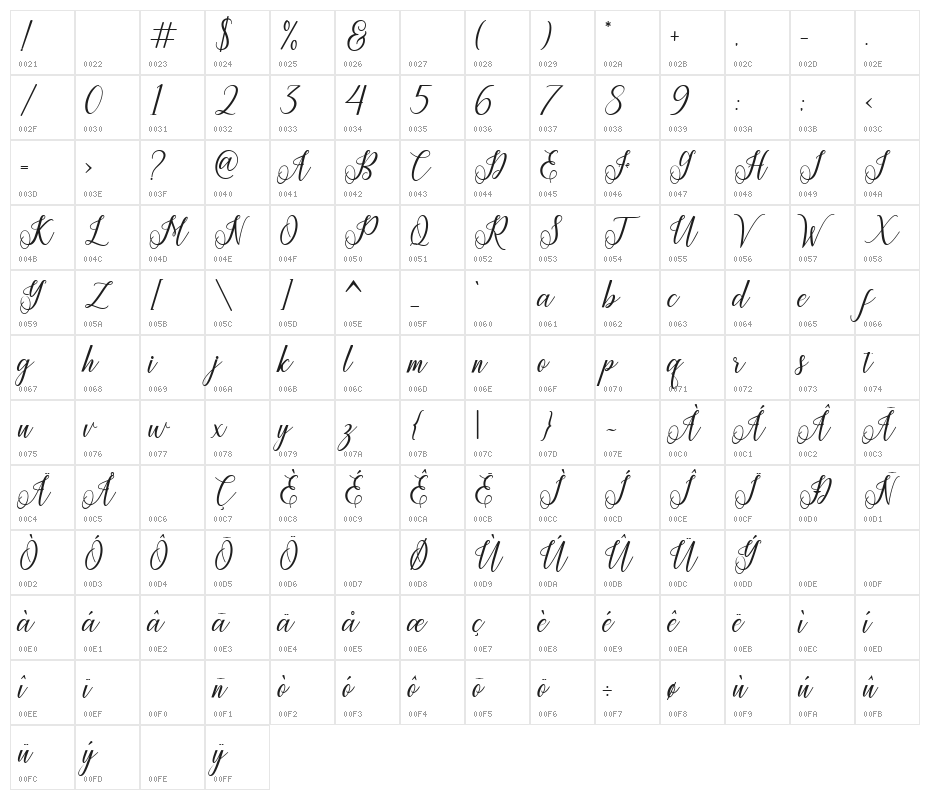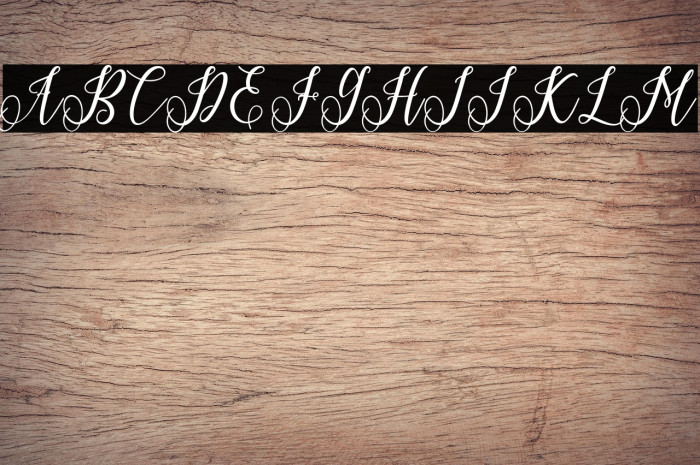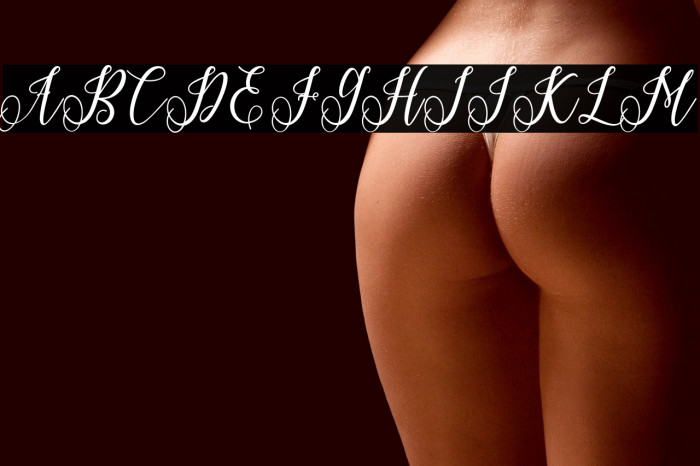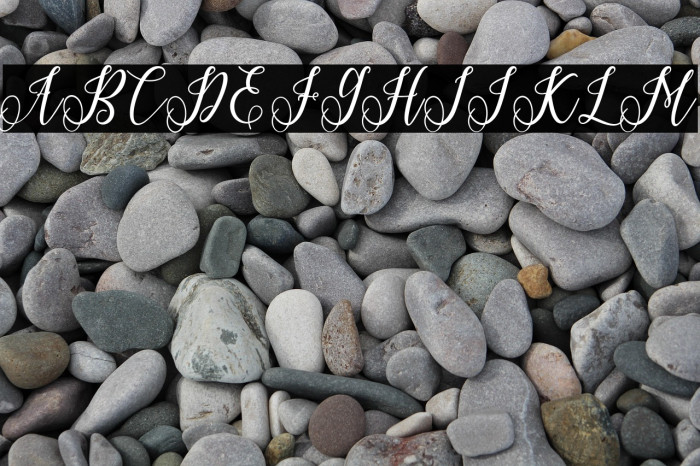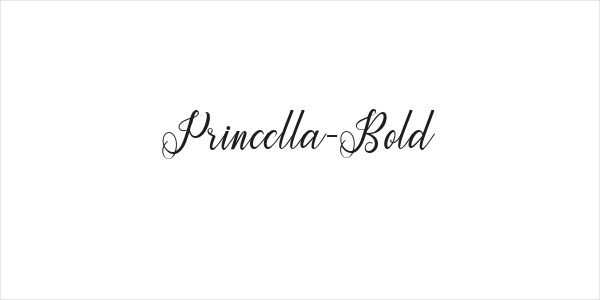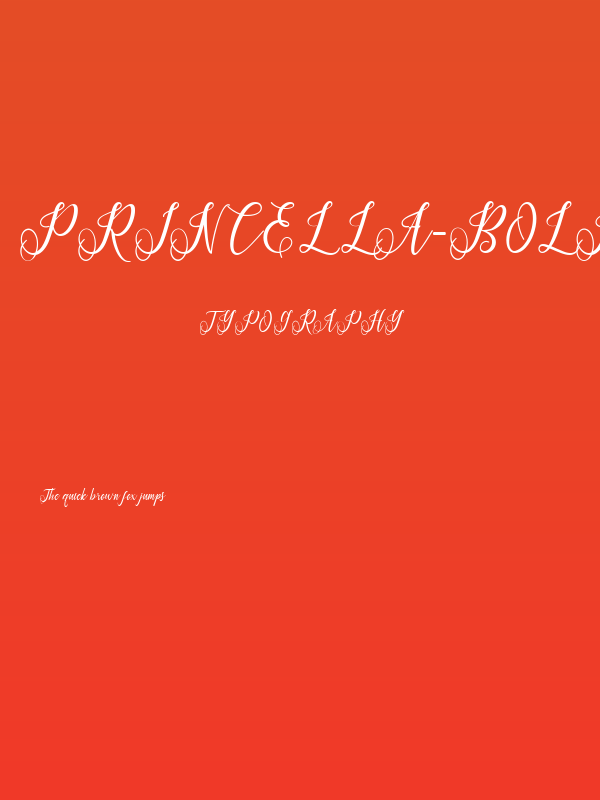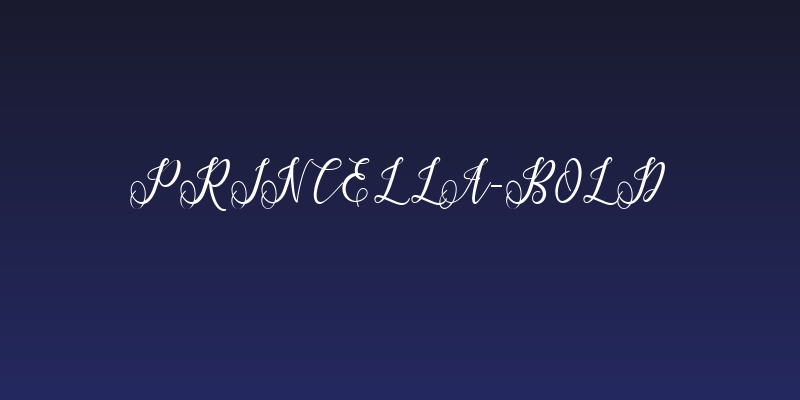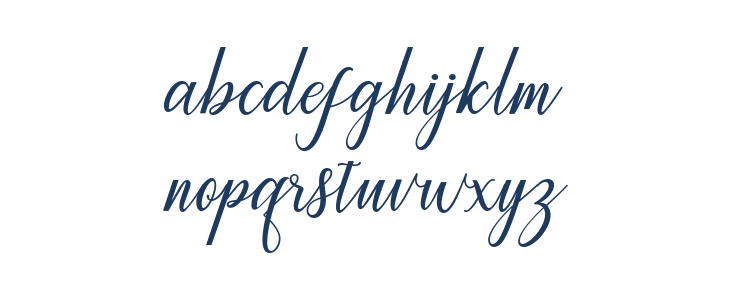
Princella-Bold Font
Princella-Bold Description
This elegant script font features a sophisticated and flowing design, characterized by its intricate loops and flourishes. The uppercase letters are particularly ornate, with each character displaying a unique and decorative flair. The lowercase letters maintain a consistent style, offering a smooth and connected appearance that enhances readability while retaining a sense of elegance. The numerals are stylishly crafted, complementing the overall aesthetic of the font. Special characters are thoughtfully designed to match the font's graceful style, making it suitable for a variety of creative applications.